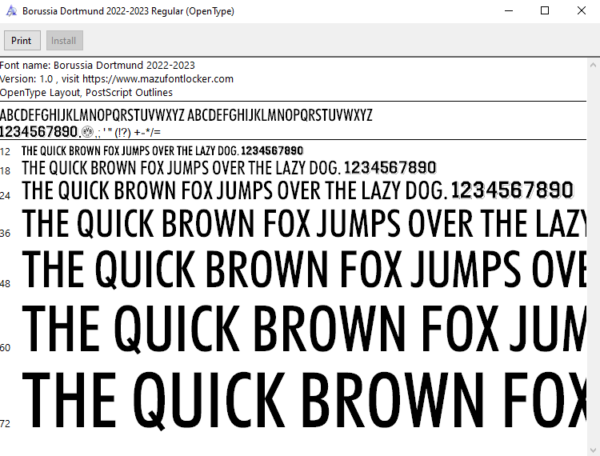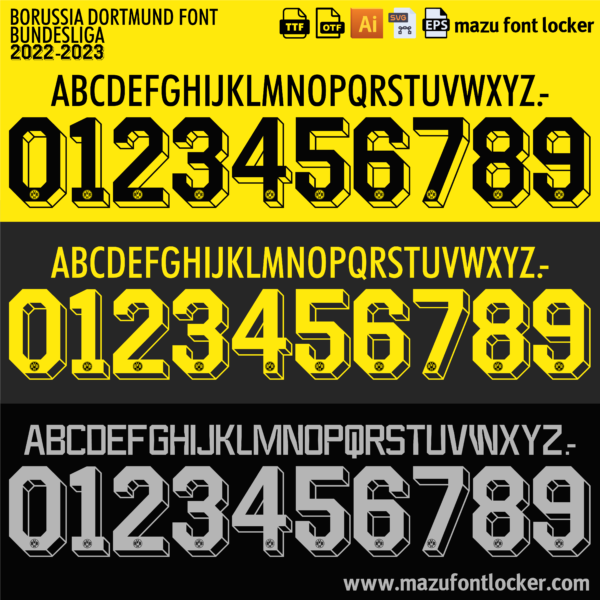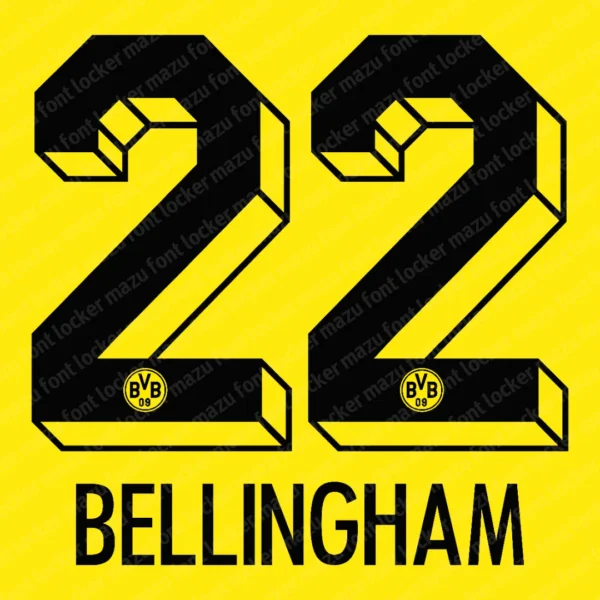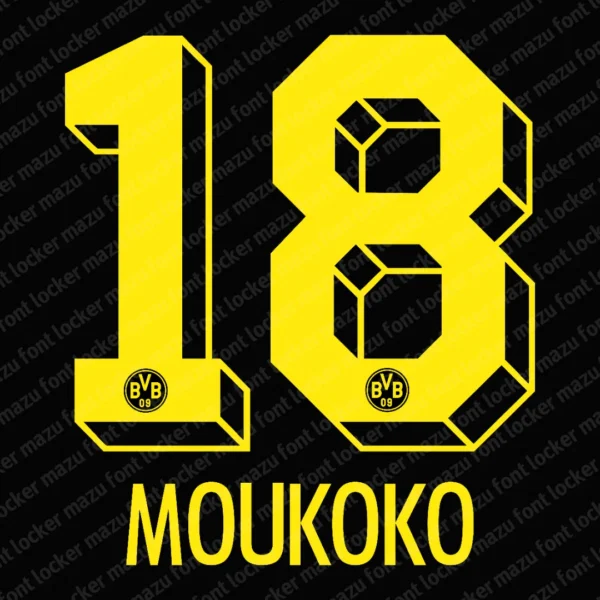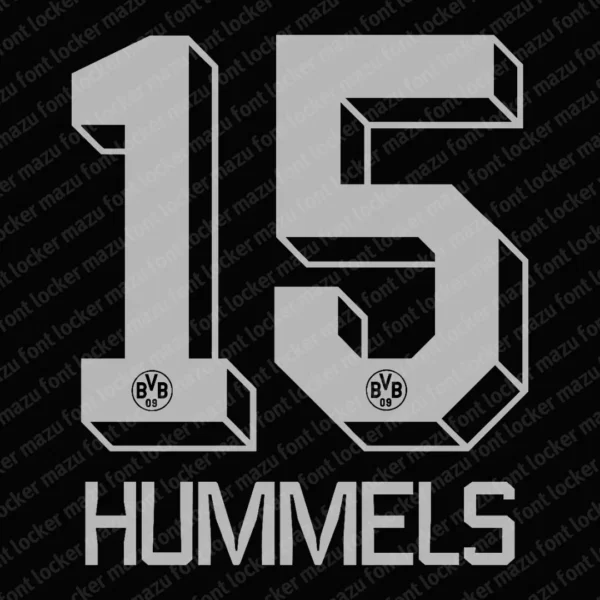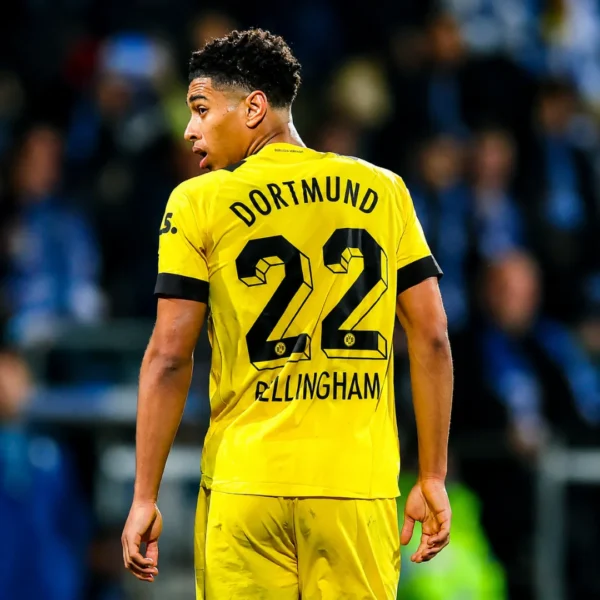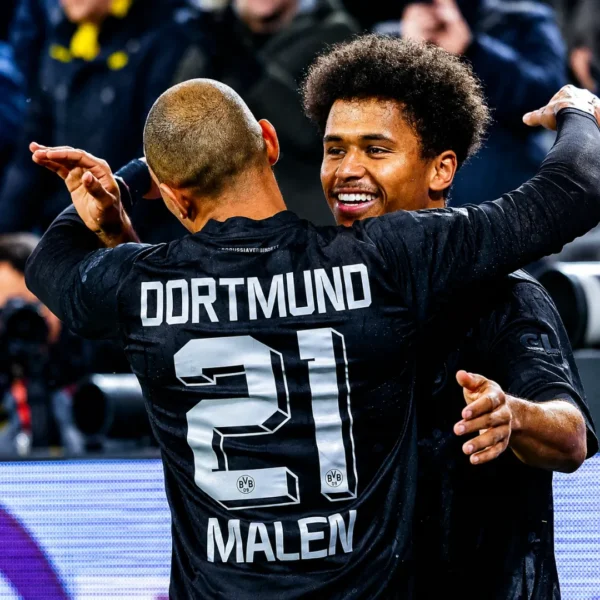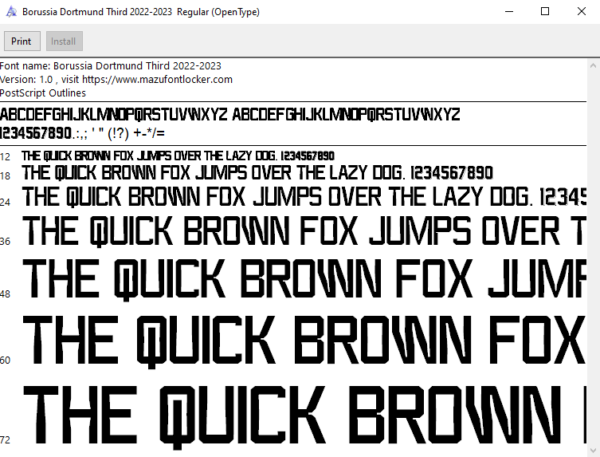
Borussia Dortmund 2022-2024 Font Vector – Epic Schwarzgelb Masterpiece
This font captures the unstoppable, precision-forged lettering inspired by Borussia Dortmund’s iconic black-and-yellow identity, proud Ruhr heritage, legendary BVB tradition, and fearless warrior-like football spirit — delivering premium authenticity and explosive match-day energy for professional jersey mockups, football graphics, sports branding, fan designs, and high-end creative projects.
Borussia Dortmund 2022-2024 Font Vector – Stunning Yellow & Black Typeface
The Borussia Dortmund 2022-2024 Font Vector is a premium typeface that accurately recreates the distinctive match lettering associated with Borussia Dortmund for the 2022-2024 football seasons. This high-quality vector font kit captures the bold, clean, and instantly recognizable typography that perfectly complements the club’s iconic yellow and black identity.
Designed for professional designers, football enthusiasts, jersey collectors, and passionate BVB supporters, the Borussia Dortmund 2022-2024 Font Vector delivers exceptional authenticity for creating realistic jersey mockups, football merchandise, social media graphics, match posters, squad designs, and custom fan artwork. Every character has been carefully recreated to reflect the powerful and precise visual style of one of Germany’s most distinctive and passionate football clubs.
Why Choose Borussia Dortmund 2022-2024 Font Vector
This font stands out thanks to its precise vector construction and authentic club-inspired styling. Every letter and numeral has been meticulously recreated to match the distinctive football lettering aesthetic associated with Borussia Dortmund during the 2022-2024 seasons and its domestic and European campaigns.
Whether you’re producing professional football kit templates, custom jersey concepts, or eye-catching football content, the Borussia Dortmund 2022-2024 Font Vector delivers a genuine match-ready appearance inspired by the identity of Die Borussen.
The lettering featured in the Borussia Dortmund 2022-2024 Font Vector combines clean geometric lines with bold modern proportions. The result is a premium and highly readable typeface that reflects Borussia Dortmund’s proud football heritage, iconic yellow and black colors, Ruhr identity, and passionate global fanbase.
• Complete uppercase A–Z alphabet and numbers 0–9 in authentic Borussia Dortmund 2022-2024 inspired style
• Special Borussia Dortmund badge glyph – Press the “:” (Colon) key to insert the club crest
The Borussia Dortmund 2022-2024 Font Vector is an independently designed typeface package inspired by the official shirt lettering and visual identity associated with Borussia Dortmund during the 2022-2024 football seasons. It has been carefully recreated for football enthusiasts, graphic designers, collectors, jersey creators, and fans producing custom football concepts, digital artwork, and fan-made projects. Please note that this is a fan-made design resource and is not an official product of Borussia Dortmund, the German Football Association (DFB), Bundesliga, or any associated organization.